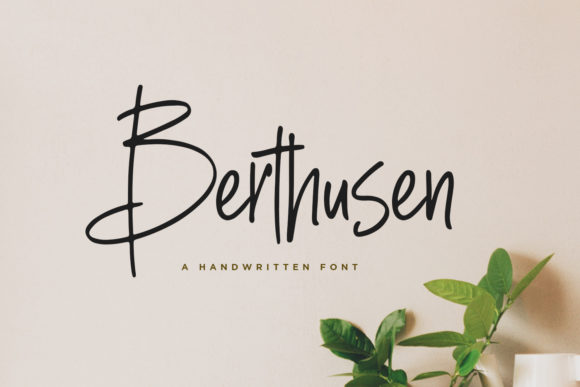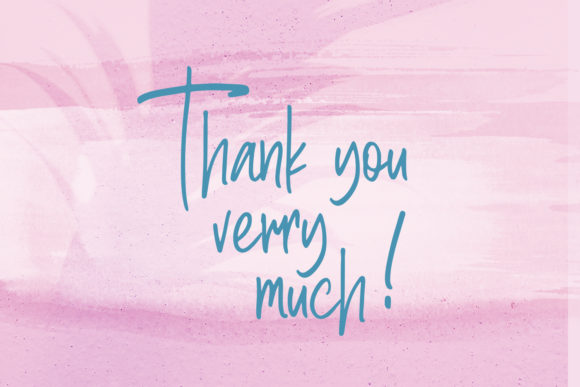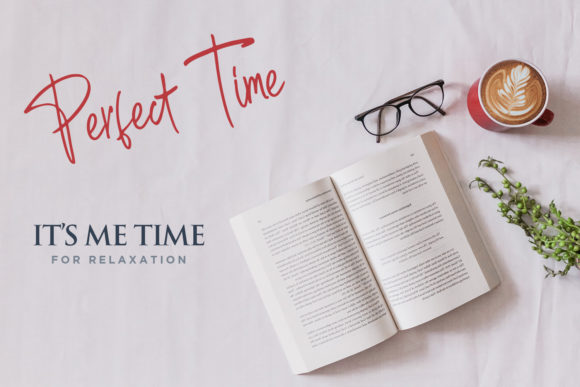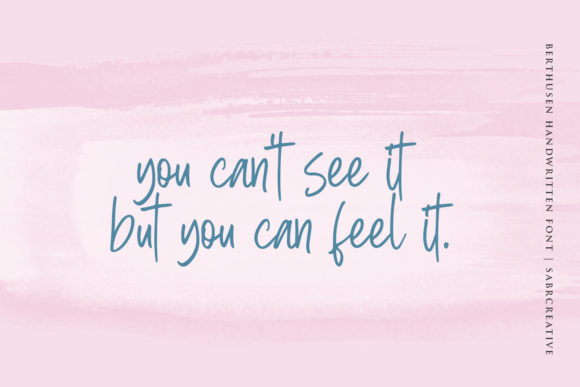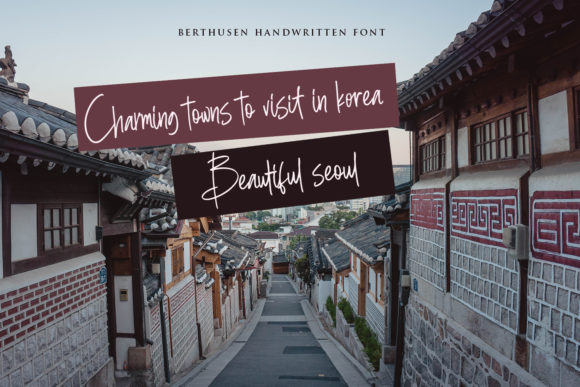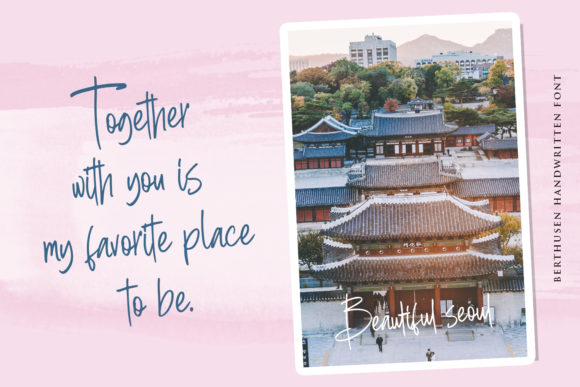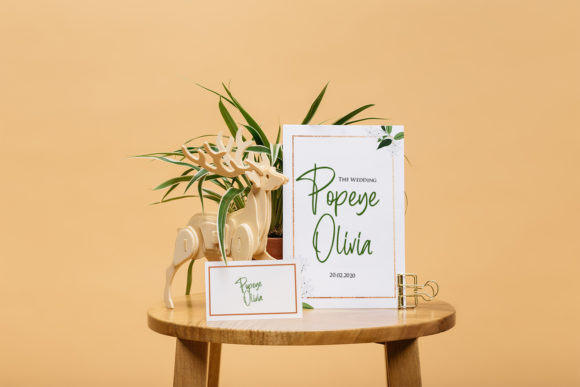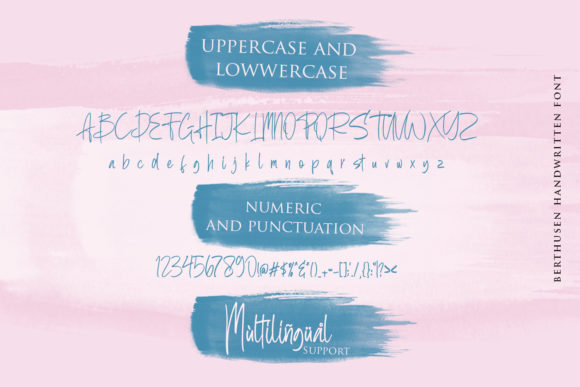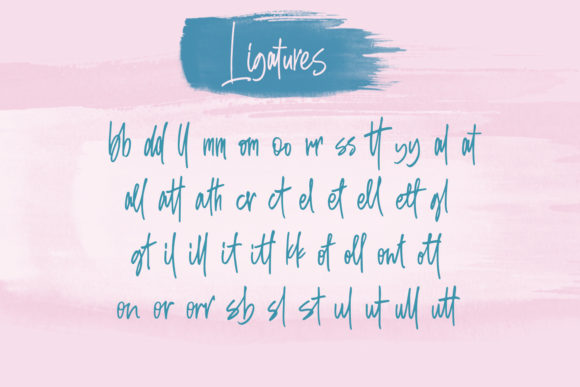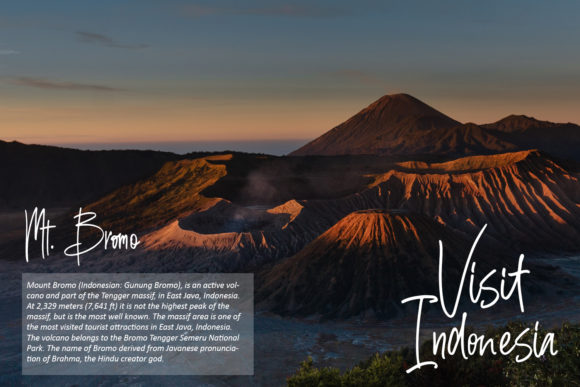
Berthusen Font
About Berthusen Font
Berthusen is a lovely font with a natural handwriting style perfect for many different projects such as logos, branding, invitations, wedding designs, social media posts and much more.